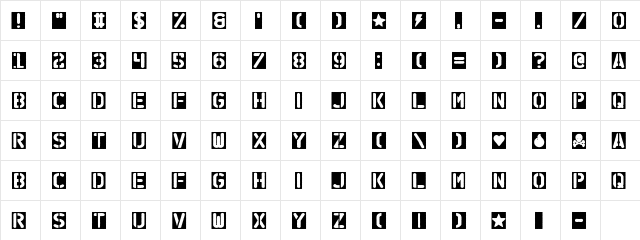
Stencil of Destiny Regular
Design Context for Stencil of Destiny Typeface
Stencil of Destiny has the rough pragmatism of spray-painted stencil signage, adding a raw, street-level authenticity to designs.
Ideal for industrial branding, streetwear, military-adjacent aesthetics, and urban signage projects.
Pro Tip: Pair Stencil of Destiny with raw, utilitarian design elements — exposed concrete textures, flat colour, and minimal ornamentation suit it well.